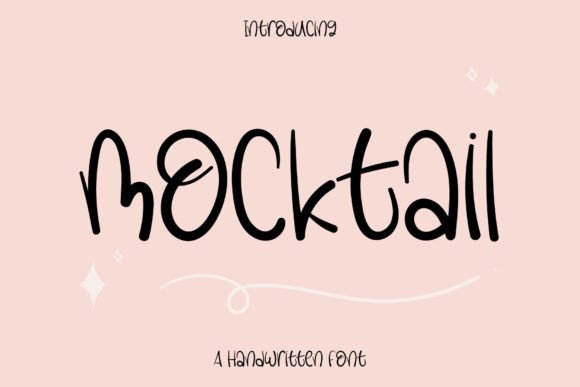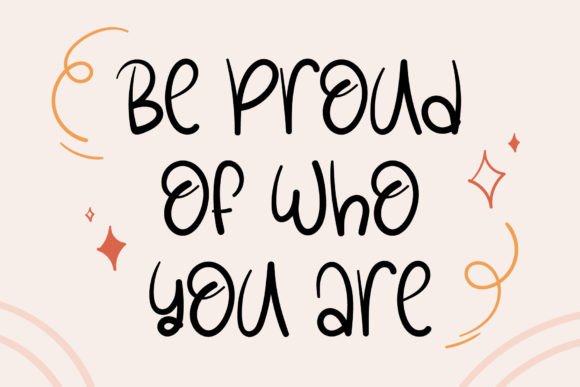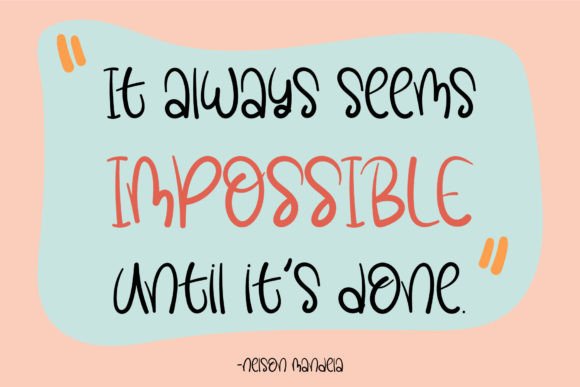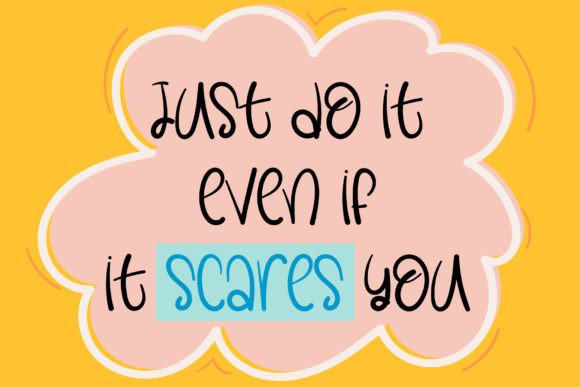
About Mocktail Font
Mocktail is a simple, joyful handwritten font. Its casual charm makes it appear wonderfully down-to-earth, readable, and, ultimately, incredibly versatile. This will look outstanding in any context, whether it’s being used on busy backgrounds or as a standalone headline!